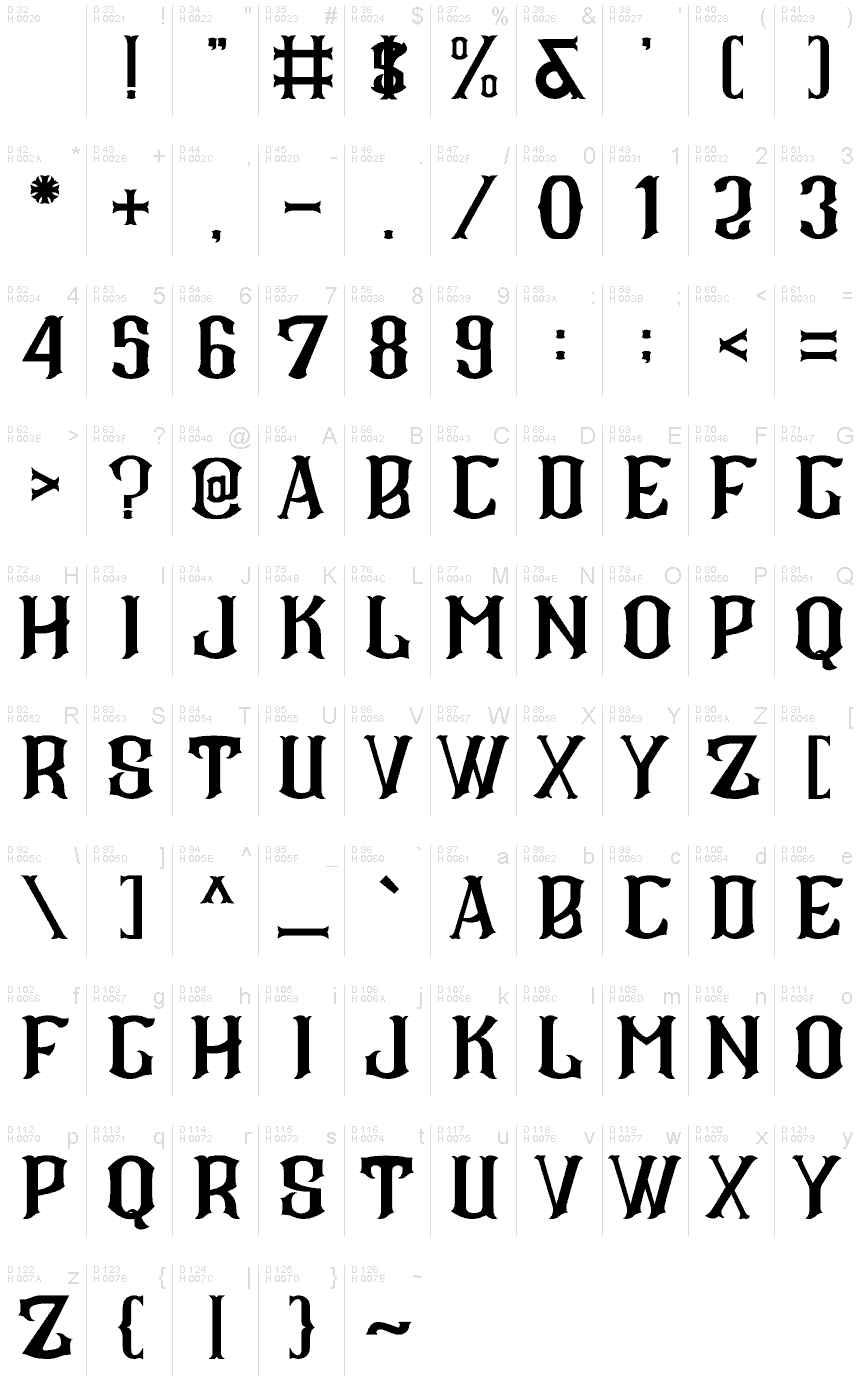
CS Roger
CS Roger font by Craft Supply Co. is an ornate retro display typeface with a Gothic-inspired appearance. The traditional font features decorative flourishes on ending strokes and has a historical appearance that fits any sort of formal aesthetic concept design. The condensed font can be the preferred choice in projects looking to achieve sophistication.
Try CS Roger in fashion magazines, posters, packaging, cosmetic labels, brochures, menus, greeting cards, book covers, logos and branding designs. Download this free resource to use right away!